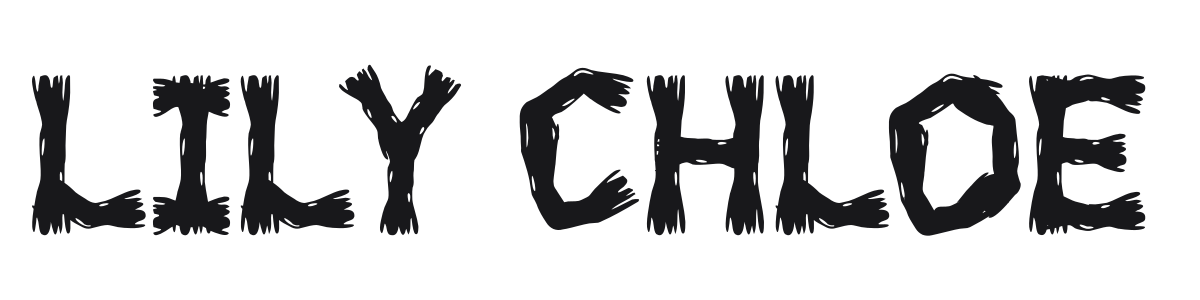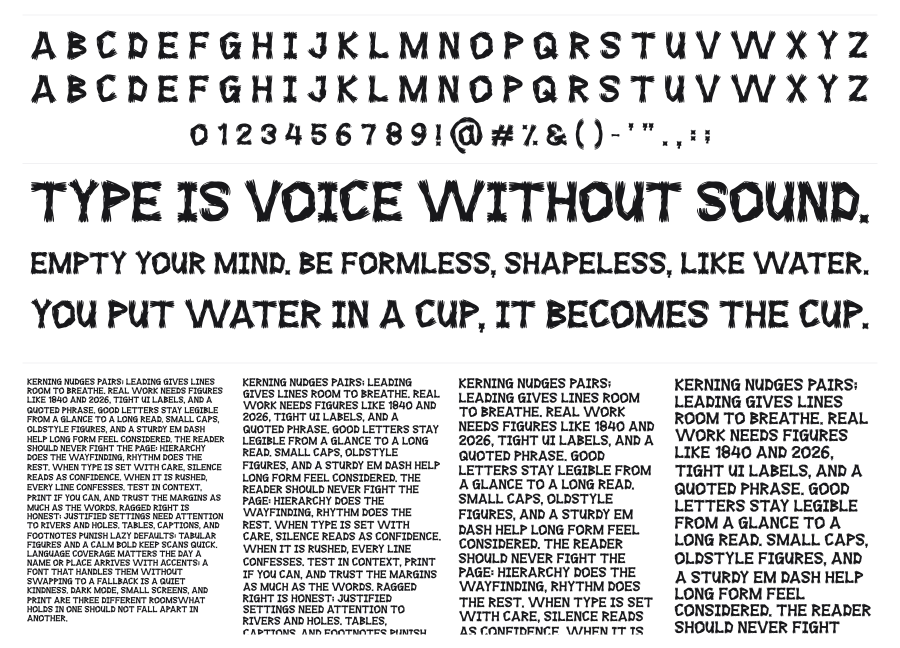
Lily Chloe
Lily Chloe is a heavy distressed serif built to look carved, scraped, and battle-worn. Every stroke carries rough, splintered edges that give the font a raw, visceral energy somewhere between hand-lettering and woodblock printing. It commands attention at large sizes and suits anything that needs to feel dangerous, underground, or handmade.